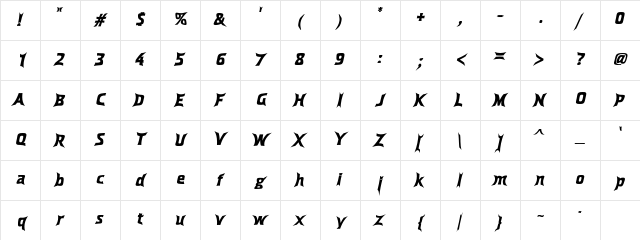
Dross05DarkSlanted is a composed and adaptable typeface that performs quietly and consistently across a wide range of design contexts. The slanted form adds forward momentum and visual energy.
Pro Tip: Use Dross05DarkSlanted for emphasis, pull quotes, and subheadings where its slanted energy can add rhythm to the layout.